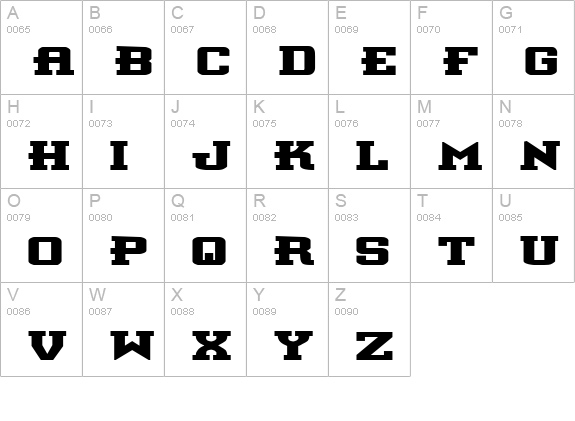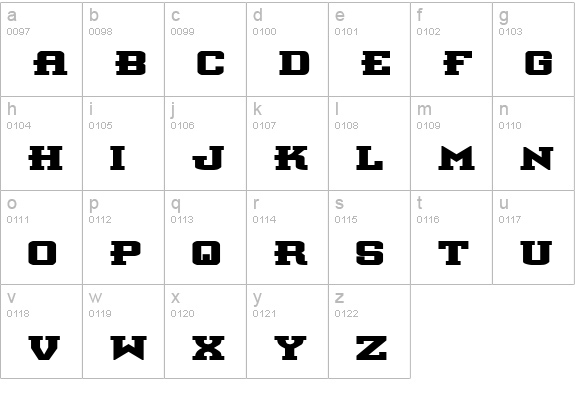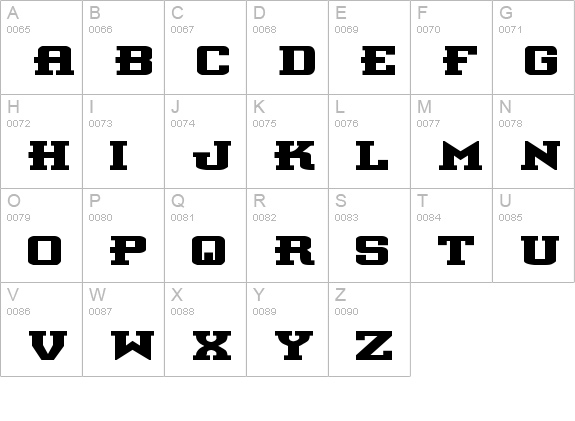
Interceptor Bold Expanded Font Details
Interceptor Bold Expanded is a strong, high-contrast, extended-width variant in the Interceptor typeface family \xE2\x80\x94 well suited to headlines, attention-grabbing titles, and strong calls-to-action.
Interceptor Bold Expanded font is a bold and eye-catching typeface that exudes strength and modernity. Its expanded design gives it a dynamic and impactful appearance, making it perfect for headlines, posters, and other large-scale designs. The bold weight ensures that your message is delivered with maximum impact, while the expanded proportions add a unique twist to traditional bold fonts. What sets Interceptor Bold Expanded font apart is that it is not only visually striking, but also versatile and easy to read. Whether used for print or digital design projects, this font will make a statement and capture the attention of viewers. Best of all, Interceptor Bold Expanded font is available for free download at FontsMarket.com. This means you can add this powerful typeface to your font collection without any cost, making it a valuable resource for designers looking to make a bold statement without breaking the bank. Download Interceptor Bold Expanded font today and take your designs to the next level!